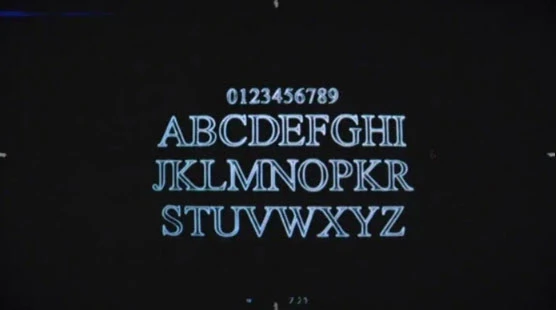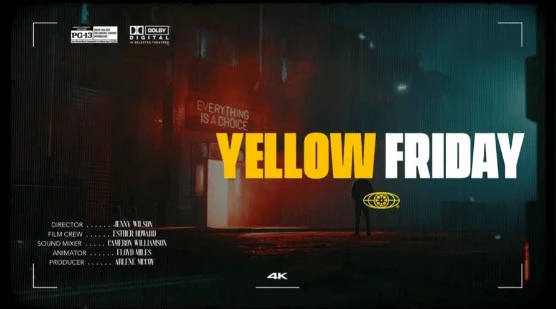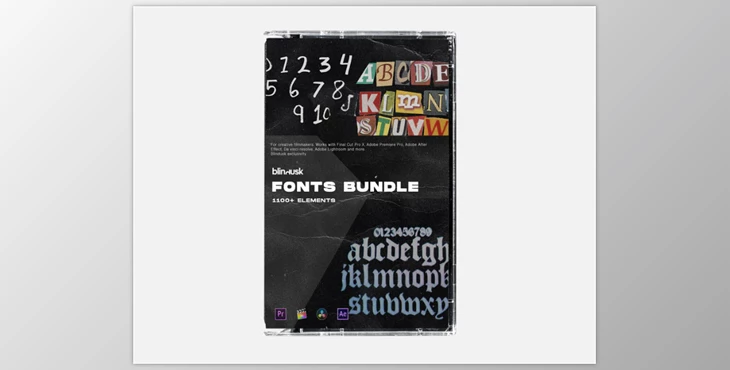
Blindusk - FONTS BUNDLE:
This bundle comprises everything a videographer would need, like animated magazine texts, Chrome fonts and titles, animated sketches, CRT fonts and countless more text styles. This will help them create striking content effortlessly. All the Included bundle elements are compatible with primary editing software like Premiere Pro or After Effects. Users are not even required to install the bundle; they simply have to import and apply the necessary overlay through blending modes.
With over 1100 unique typographic styles offered, the Fonts Bundle offers everything a designer would wish for. This bundle is perfect for content creators, designers and filmmakers who wish to bring to life their creative visions.